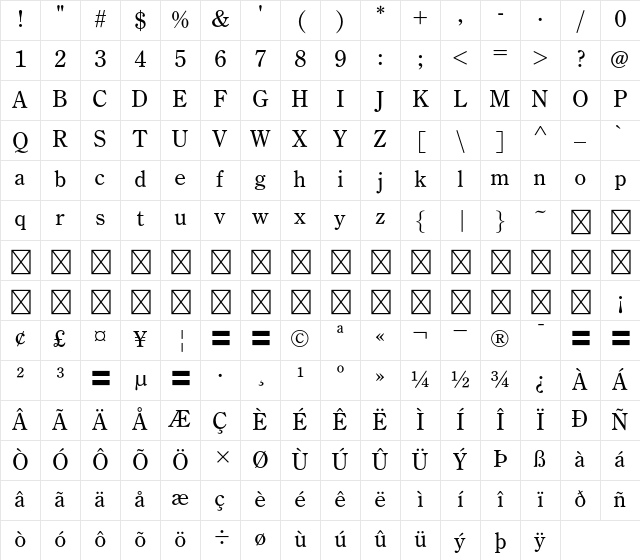
A P-OTF Shuei 4goKana StdN M
Designer: Dai Nippon Printing Co., Ltd.
Design Context for A P-OTF Shuei 4goKana StdN
A P-OTF Shuei 4goKana StdN is a composed and adaptable typeface that performs quietly and consistently across a wide range of design contexts.
Pro Tip: Use A P-OTF Shuei 4goKana StdN in both headline and body roles to test its range before committing to a single application.